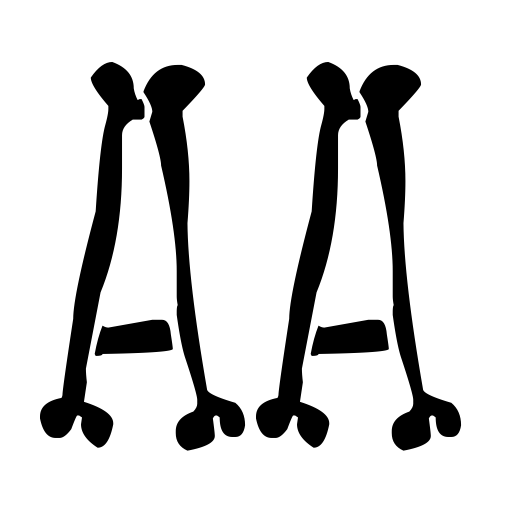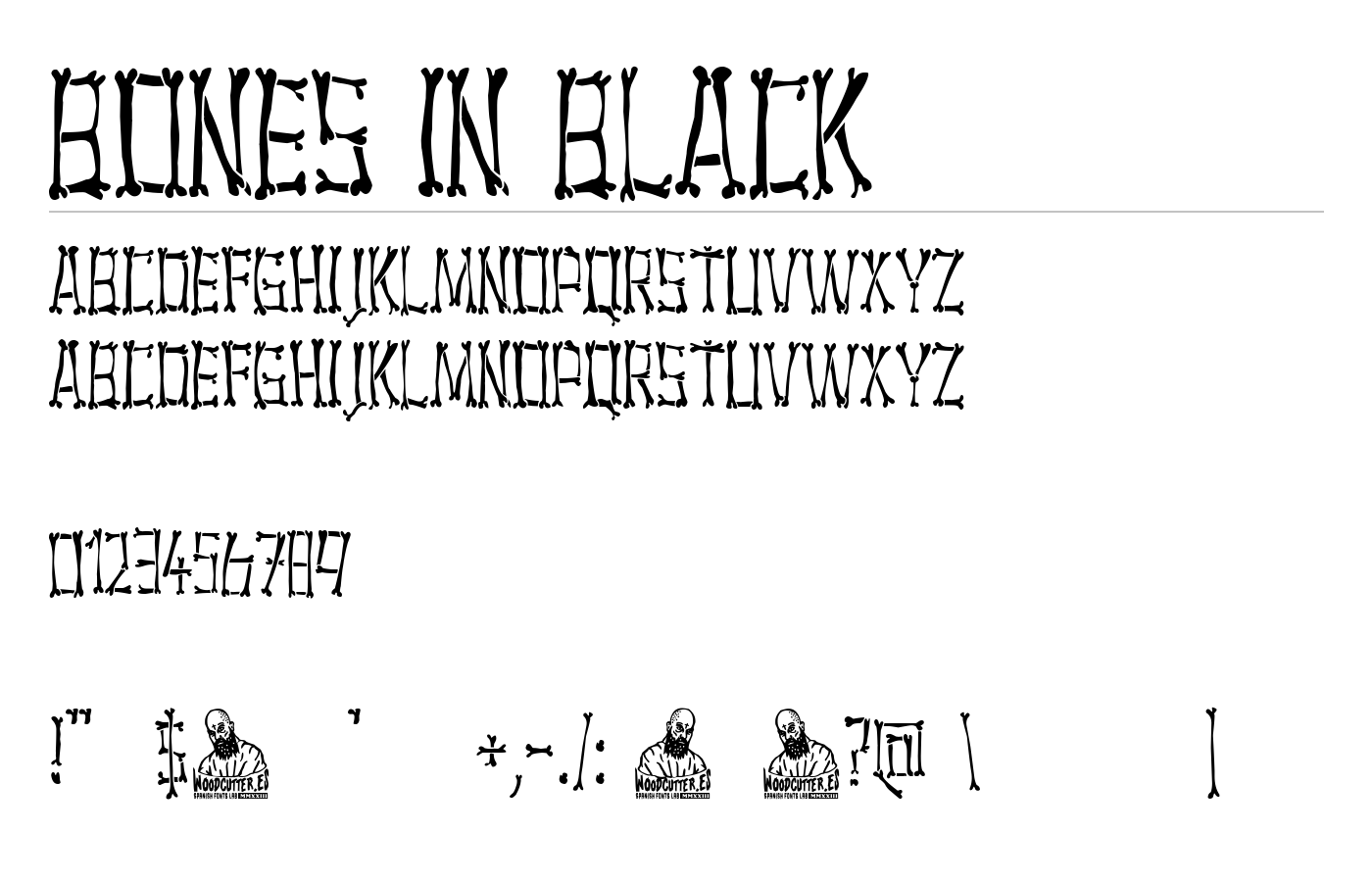
Bones in Black is a playful and bold display font that mimics the look of rough, skeletal bones, creating a quirky and slightly eerie vibe. Its tall, narrow letterforms with uneven strokes make it perfect for Halloween themes, horror projects, or anything needing a distinctive, spooky touch. This font works best in headlines, posters, and graphic designs where a dramatic, eye-catching impact is desired.
Bones in Black Font
About Bones in Black Font